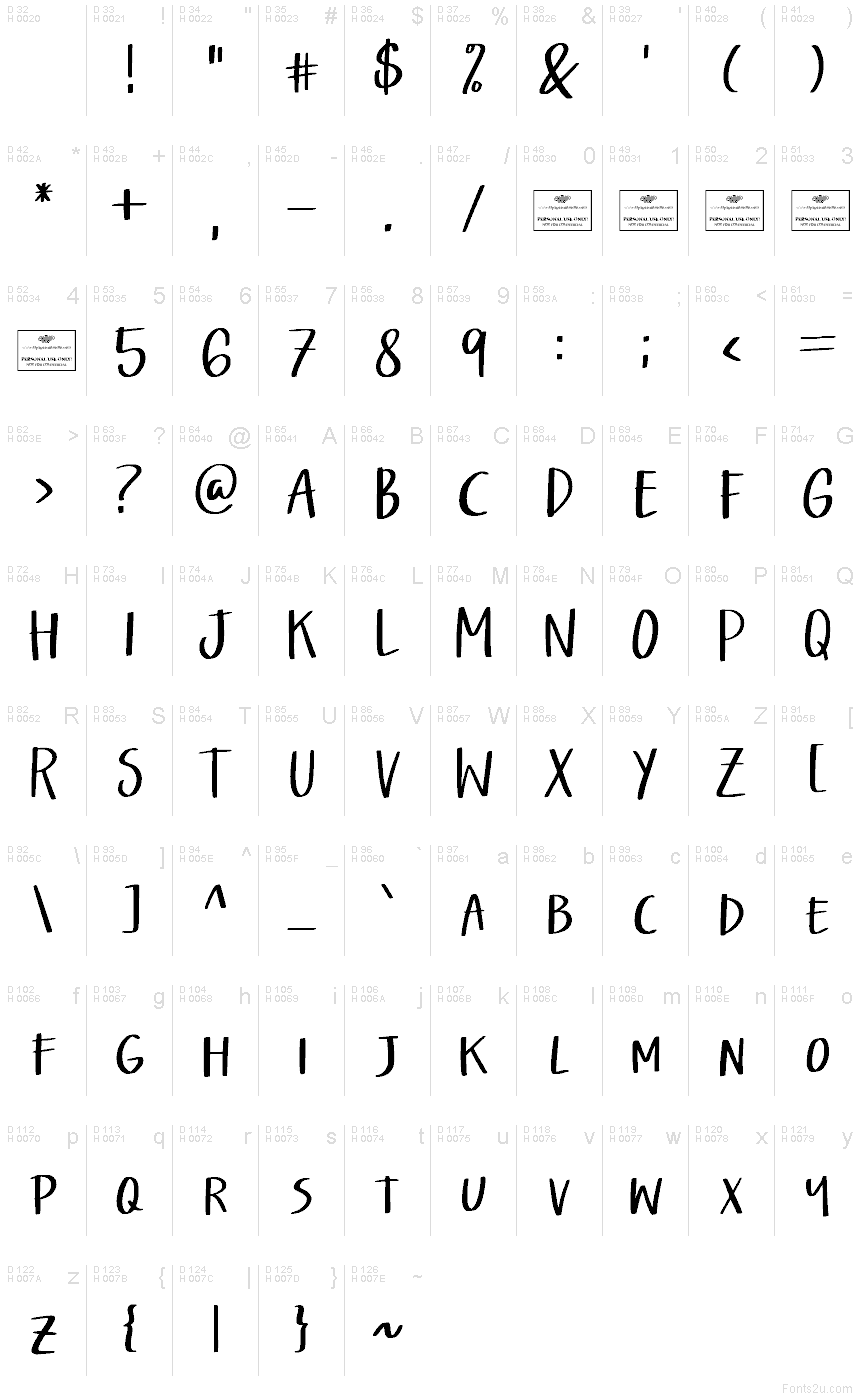
Salting
Salting font by Alpaprana Studio is a free handwritten font with a modern, expressive style. The casual feel and rounded edges of the letters make for an approachable and readable look with artistic flair. These ligatures render the character skeleton, adding intrigue to the overall appearance.
Apply this typeface to logo designs, labels, packaging design projects, website templates, social media posts, greeting cards, for heading titles on printed or digital medium material. Additional uses are expected to be branding projects like business cards or stationery designs.